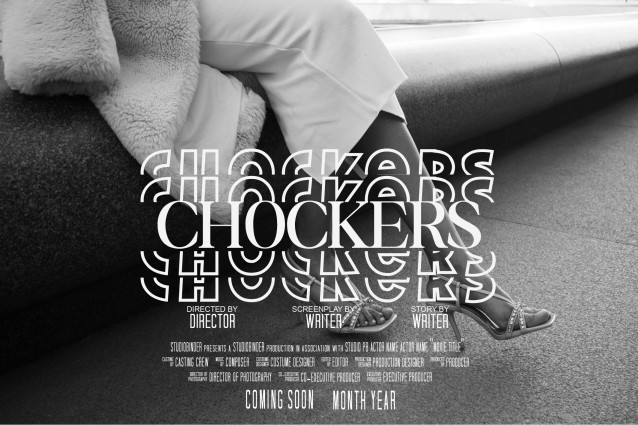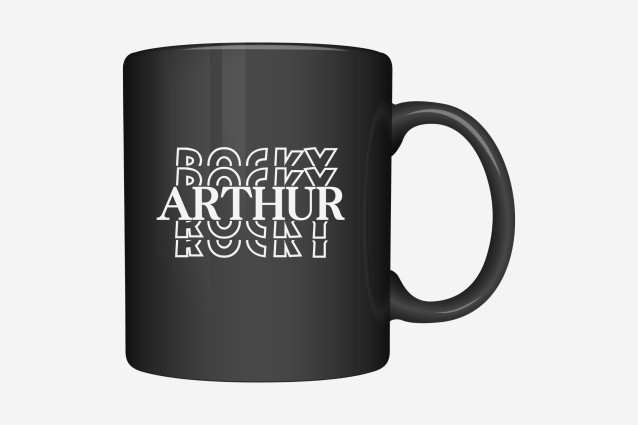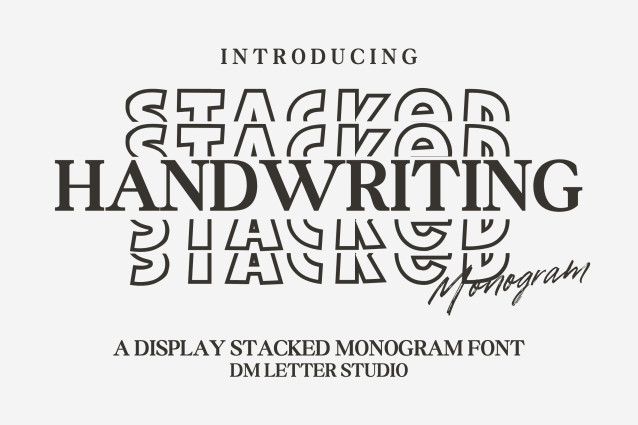
Handwriting Stacked Monogram Font
Handwriting Stacked Monogram Font is a delightful handwritten monogram font featuring a vertically stacked layout for a fresh and contemporary twist. Combining the charm of casual penmanship with a stylish stacked structure, it’s perfect for personalized branding, stationery, initials-based designs, journaling, and monogram crafts. Its warm, hand-crafted aesthetic adds a personal and friendly touch to every project.